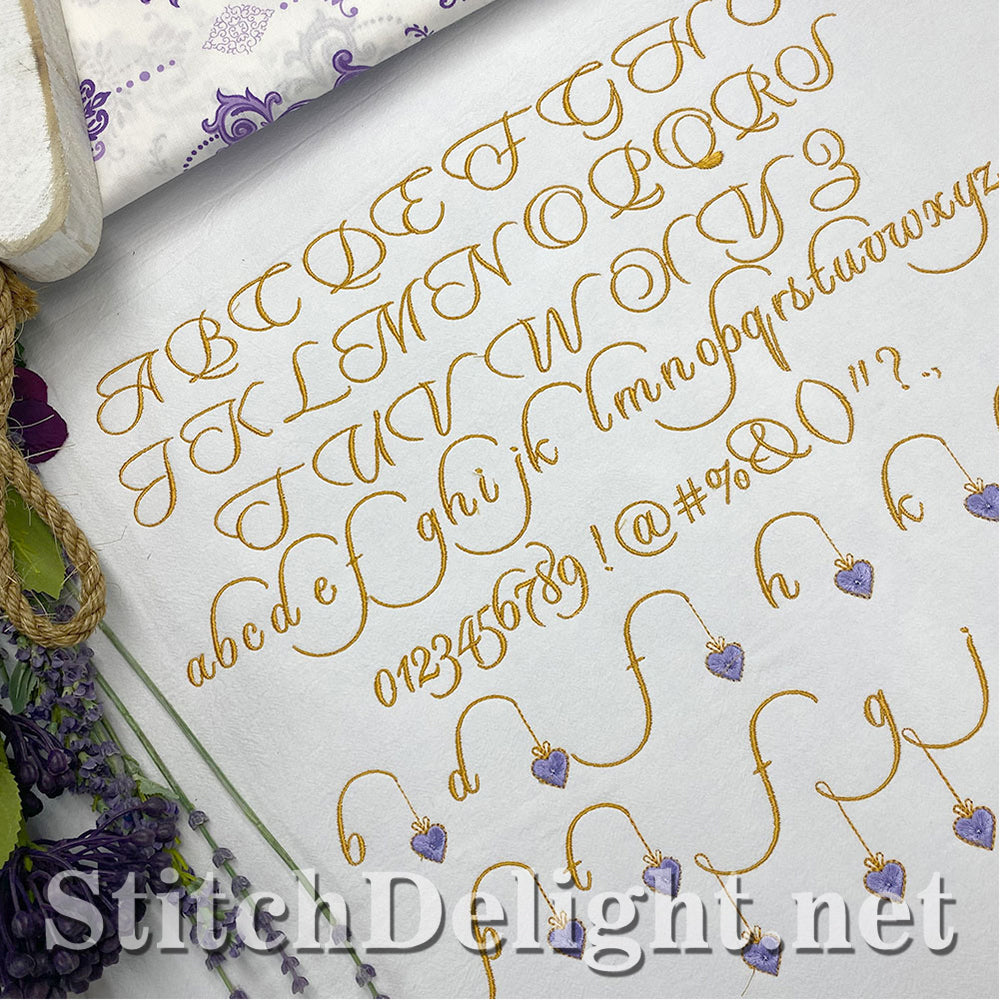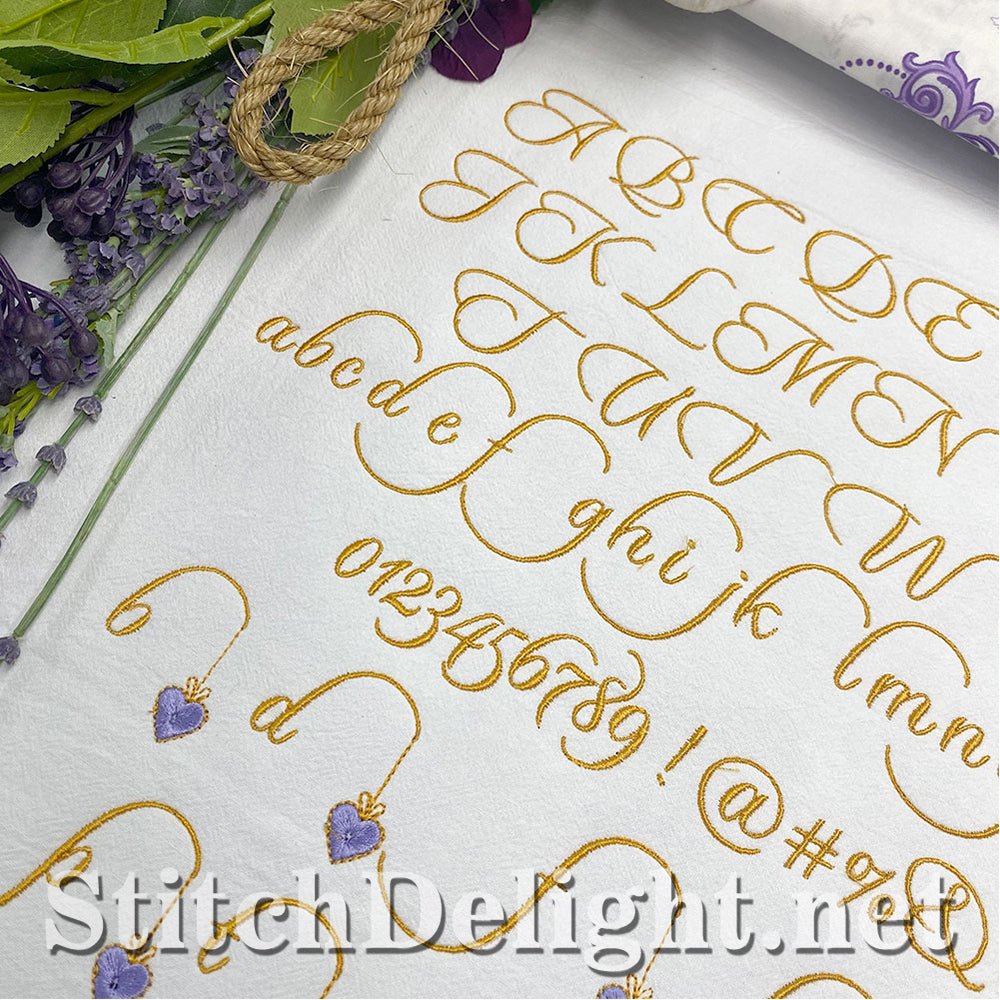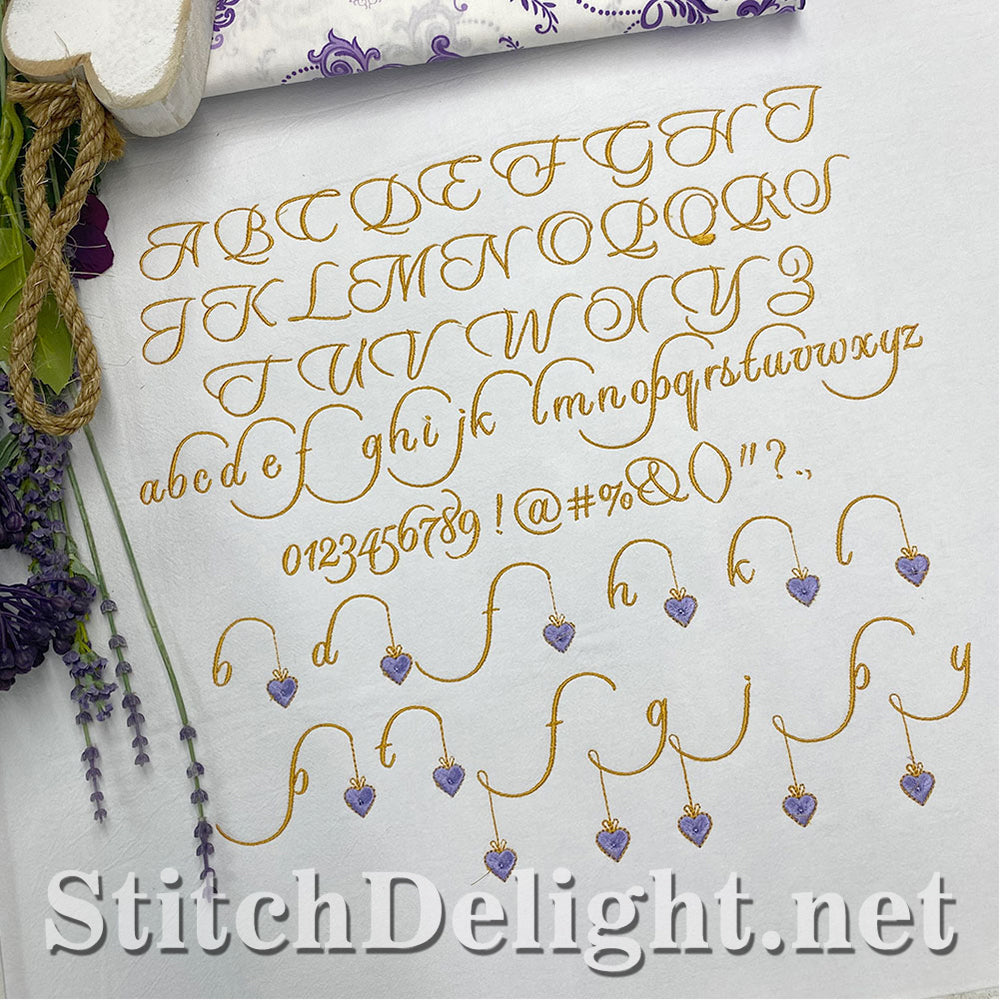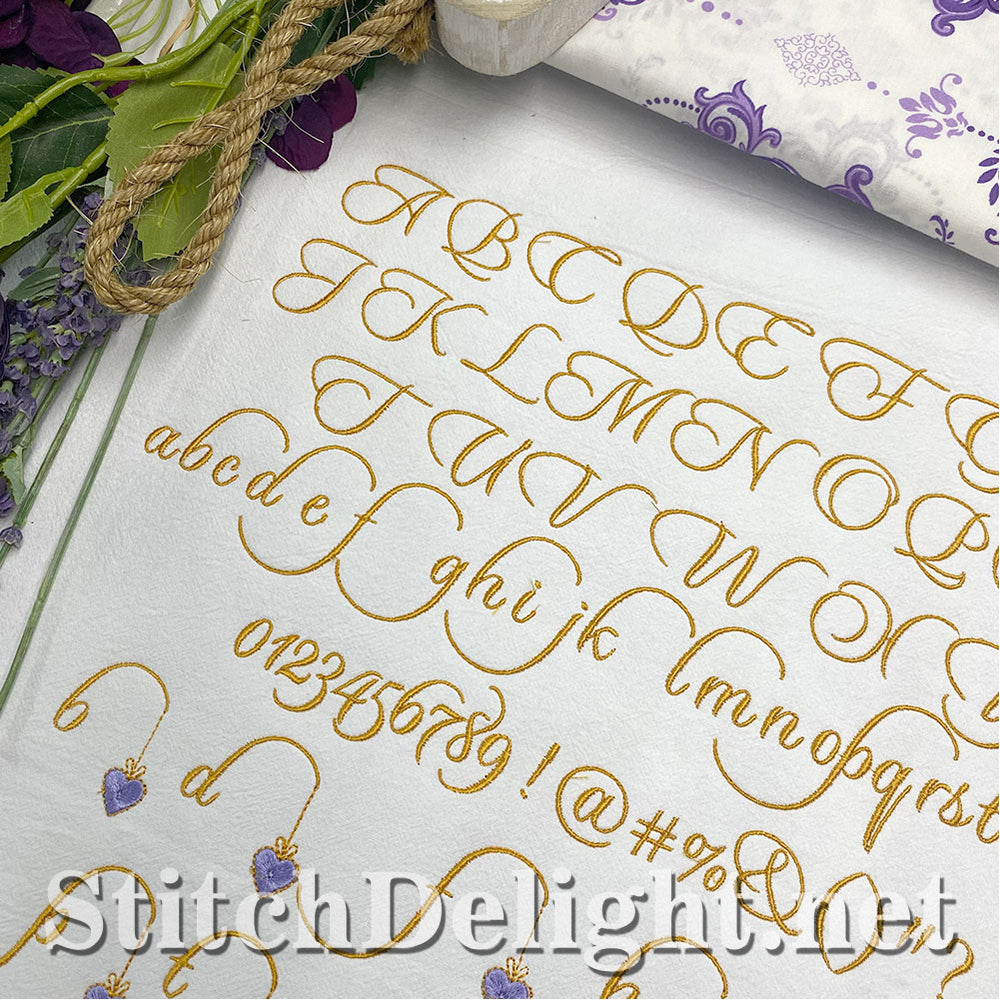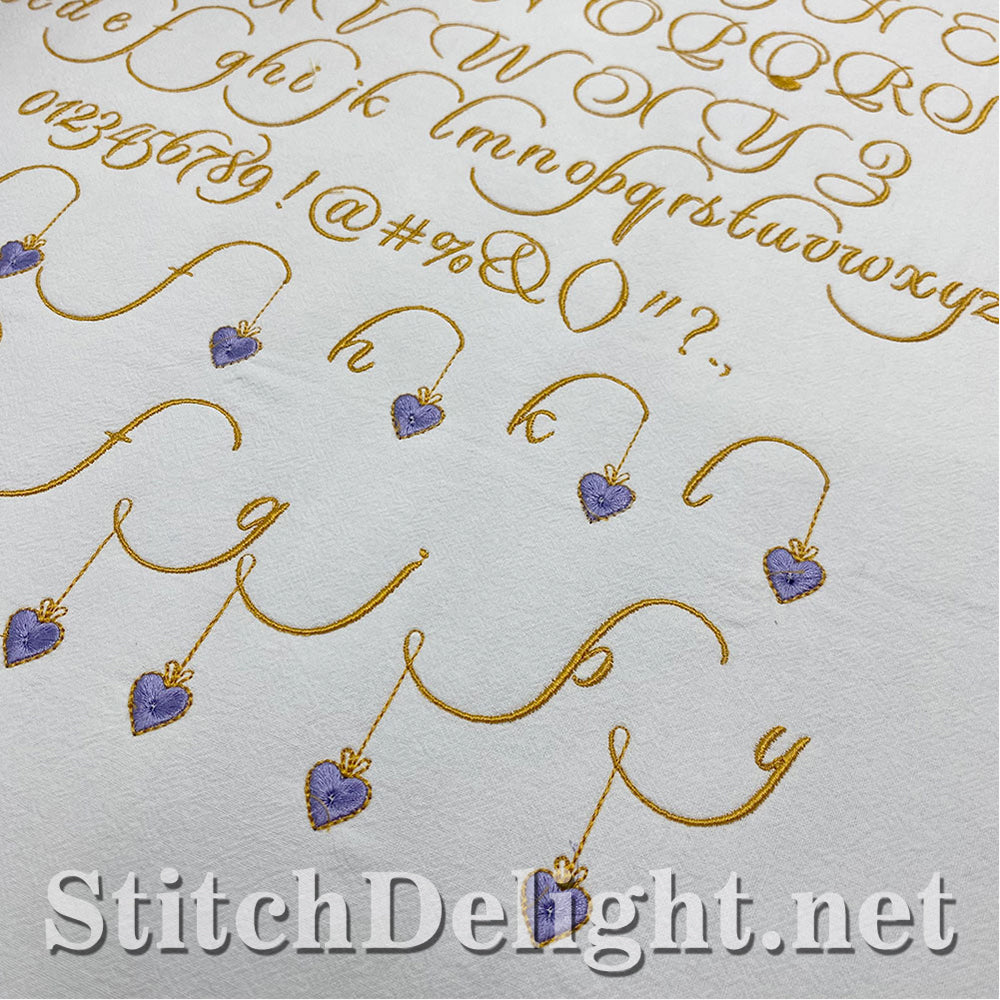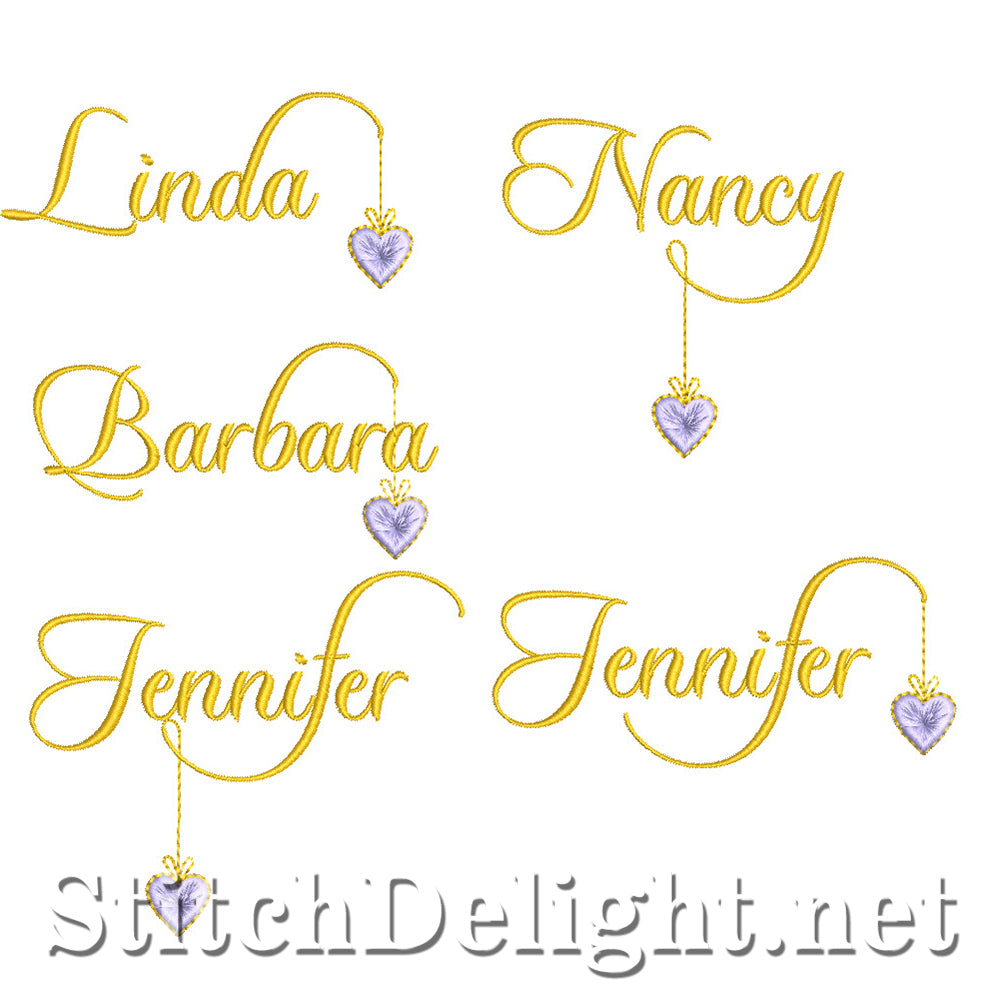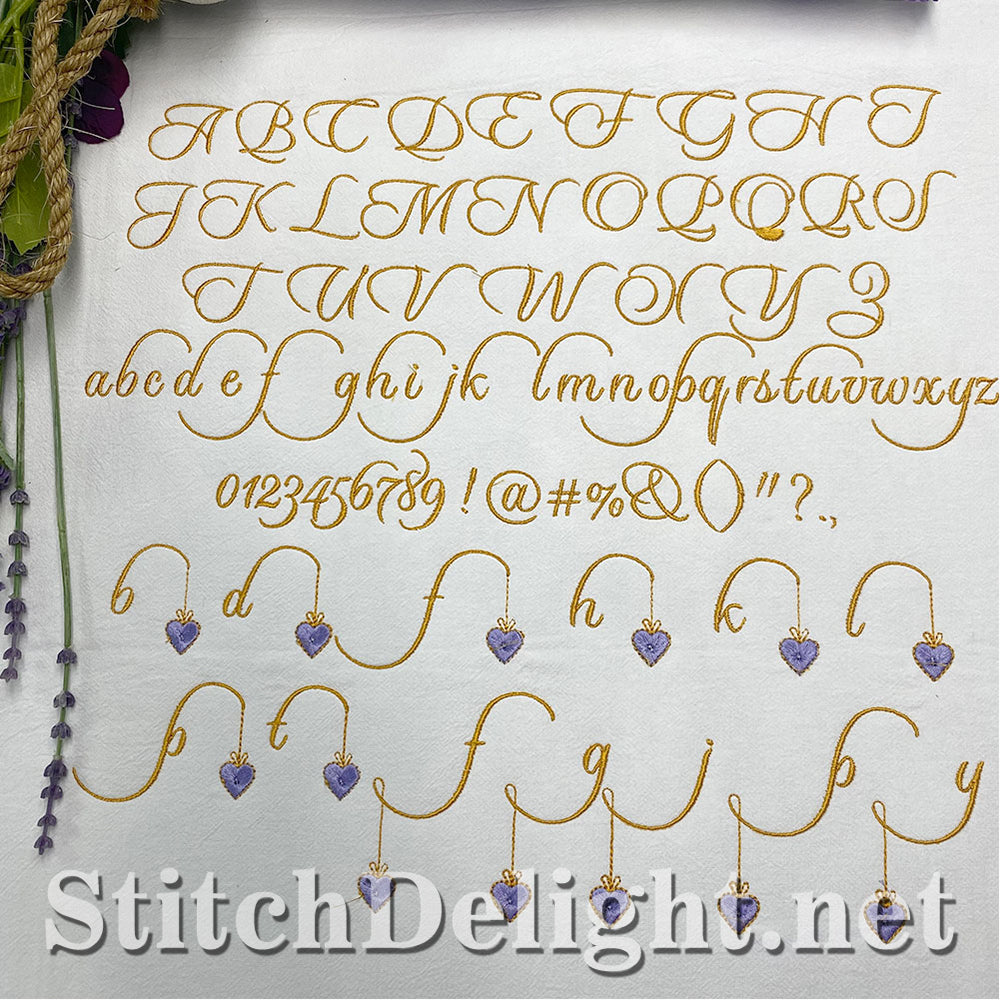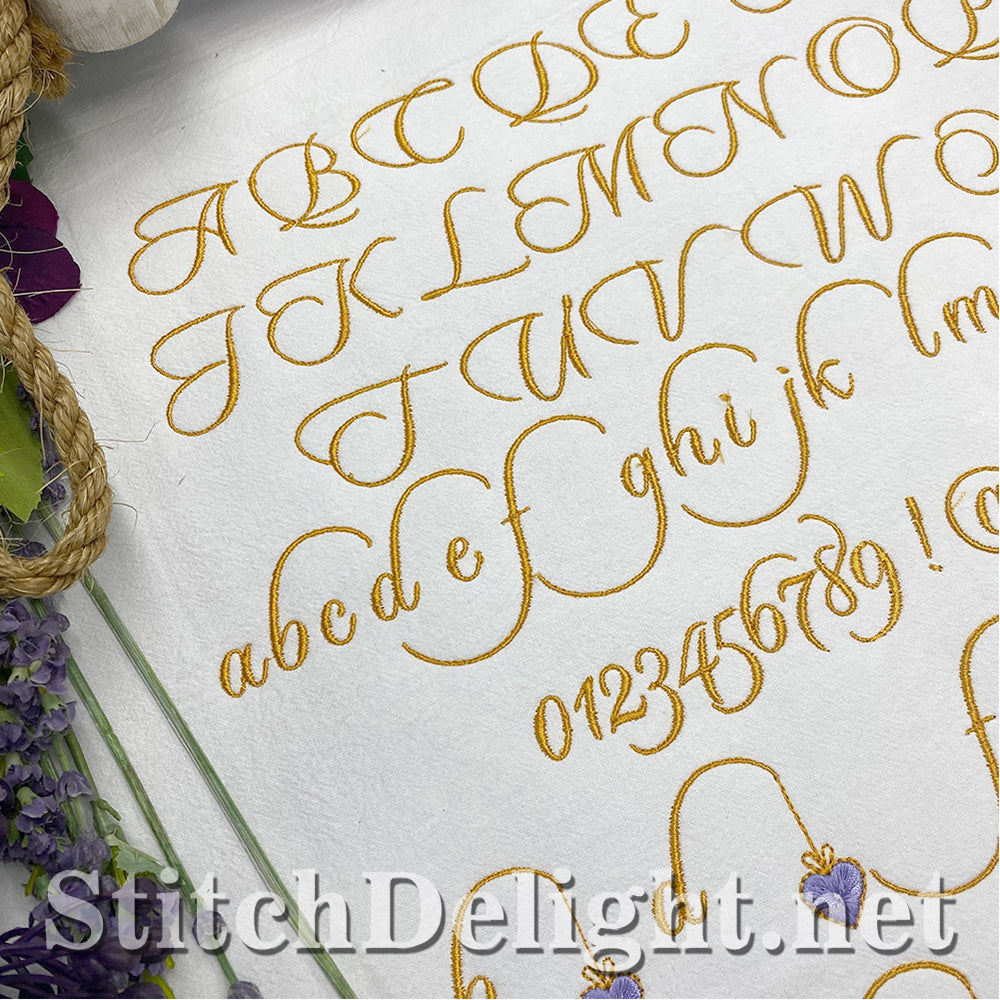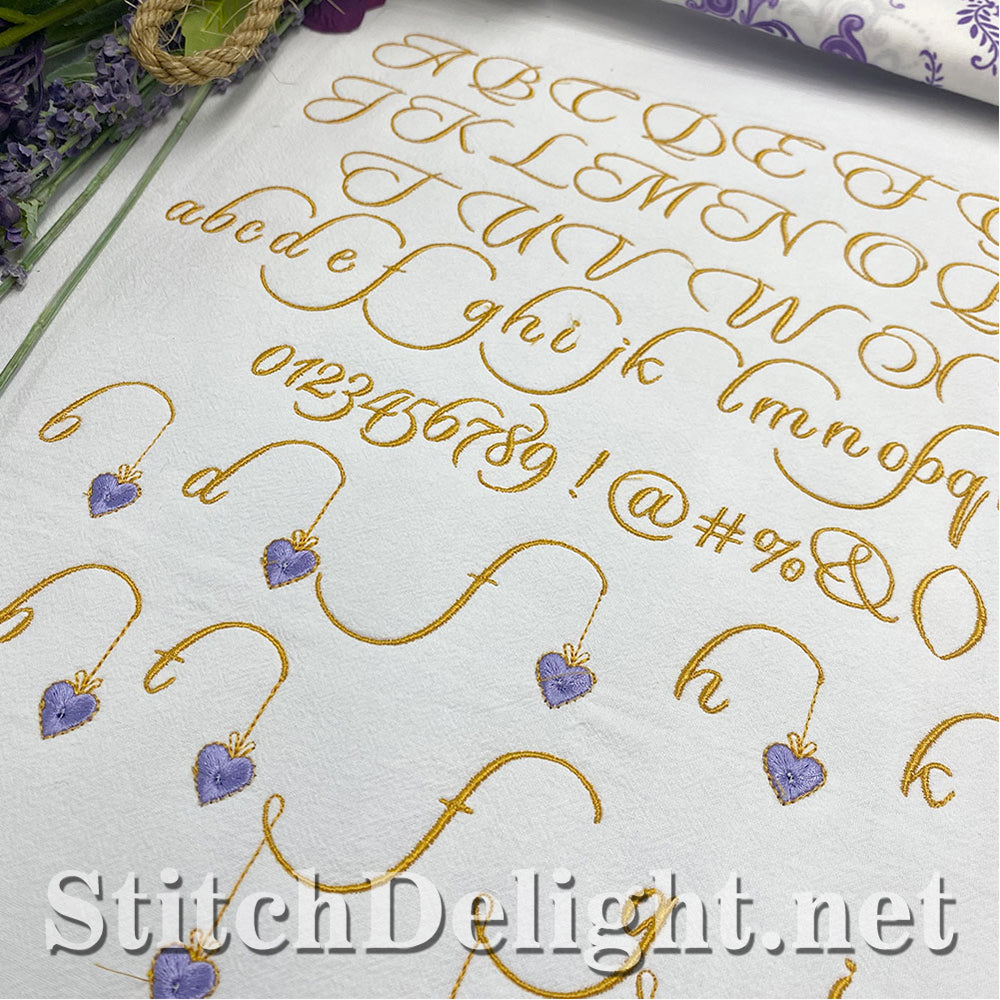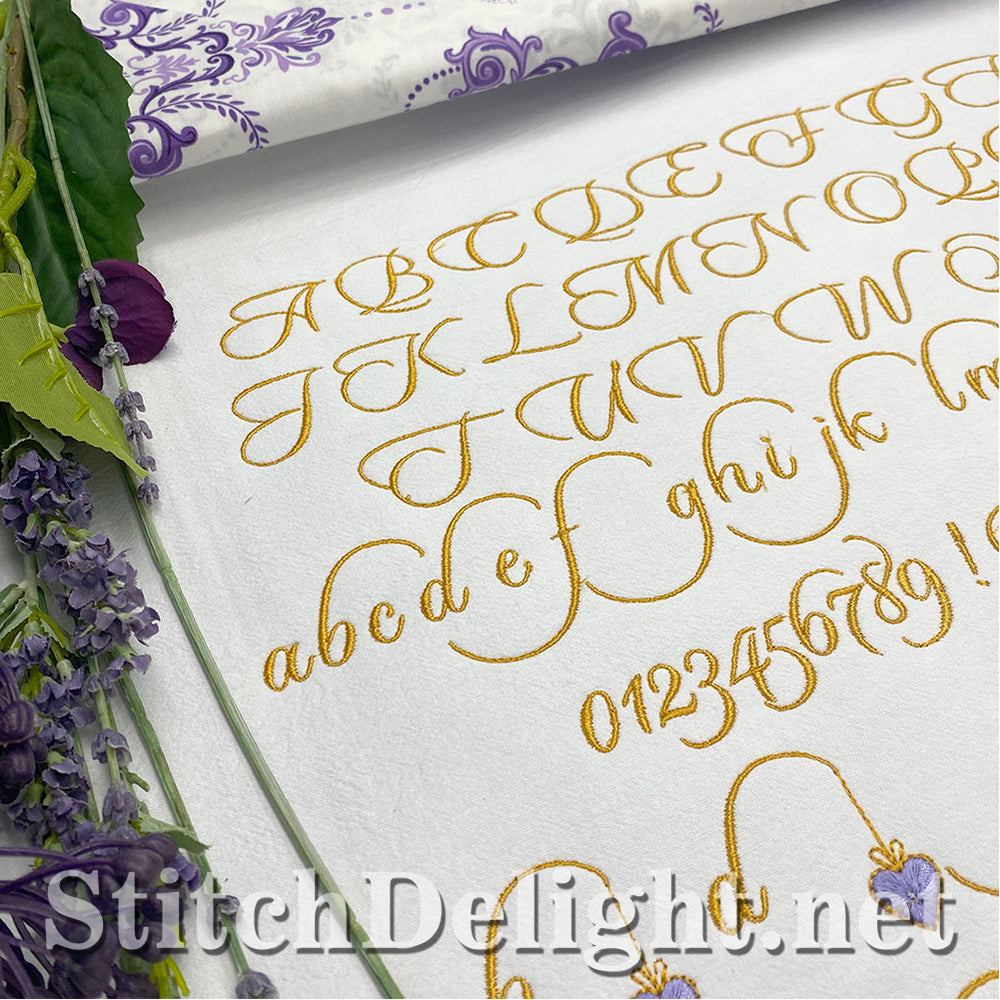
This gorgeous font with the additional hanging heart letters will become your most used font. Just look at the stunning names you can make. The BX format includes these letters and a mapping list is included in the PDF file so you know what to type to get to those letters - Letter height of just over 1"